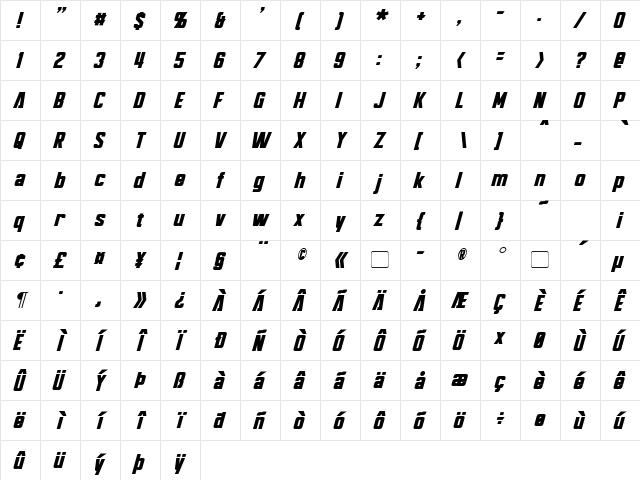
Bayformance Italic
Design Context for Bayformance Typeface
Bayformance takes a measured approach to typography — its balanced proportions and neutral character make it a reliable workhorse for both digital and print work. Its italic angle brings a sense of urgency and motion to the letterforms.
Pro Tip: Use Bayformance for emphasis, pull quotes, and subheadings where its slanted energy can add rhythm to the layout.